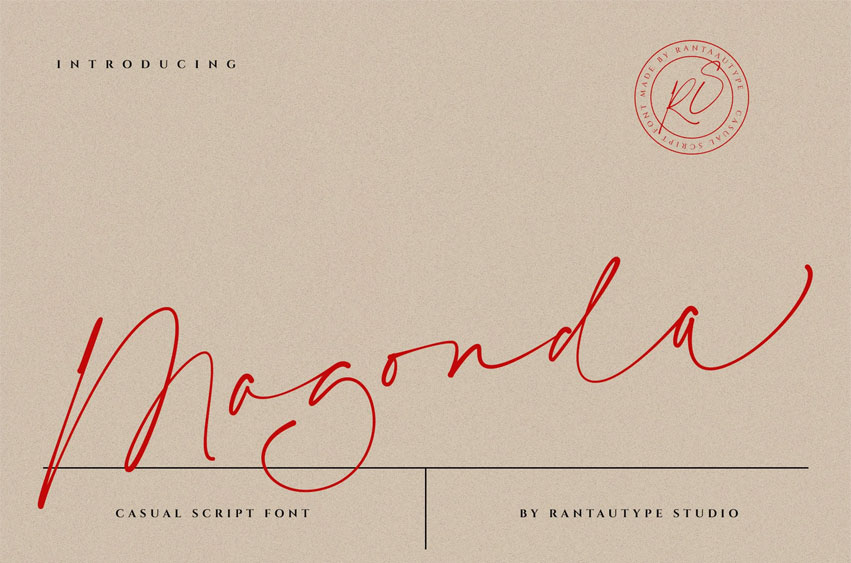
Magonda Font is a classy script font with a stylish look. Magonda is a perfect choice for any creative endeavor, chic, or lifestyle design such as logos, titles, watermarks on photography, covers, branding, display and magazines, wedding events, corporate brands, quotes, album covers, business cards, business projects, company branding and more project with handwritten taste.